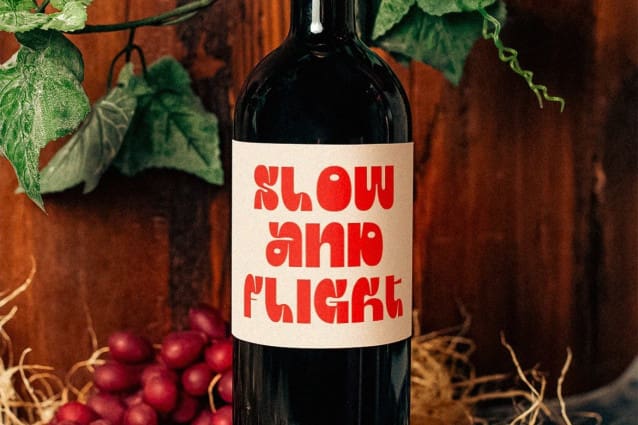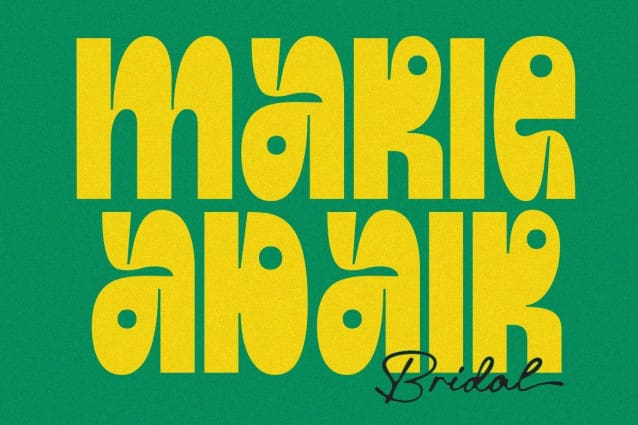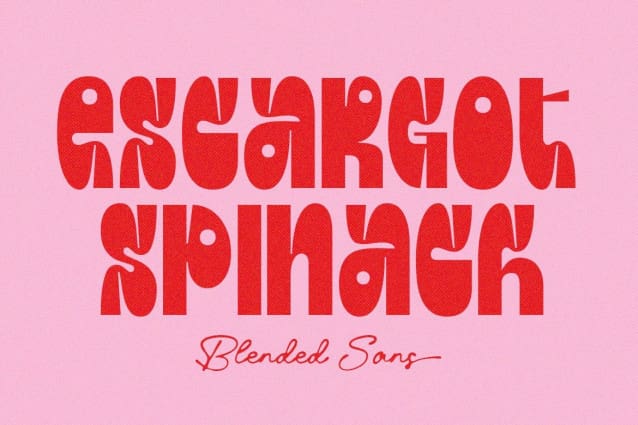
Escargot Spinach Font
Escargot Spinach Font – Display sans font combining uppercase and lowercase letterforms for a memorable and versatile look. Perfect for logos, posters, branding, and merchandise, its distinct style ensures your designs stand out effortlessly.